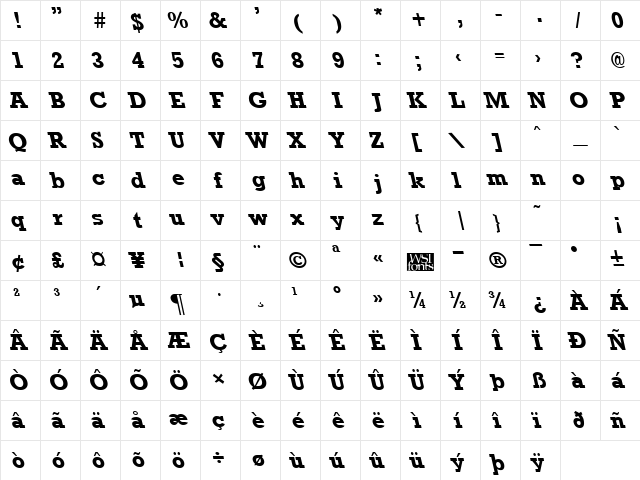
RockneyLefty Bold Font Preview
RockneyLefty Bold
RockneyLefty Bold Font Details
Design Context for RockneyLefty Typeface
RockneyLefty takes a measured approach to typography — its balanced proportions and neutral character make it a reliable workhorse for both digital and print work. Its bold stroke weight gives it real presence on the page.